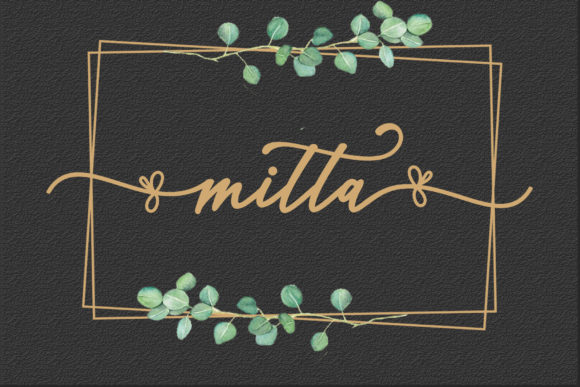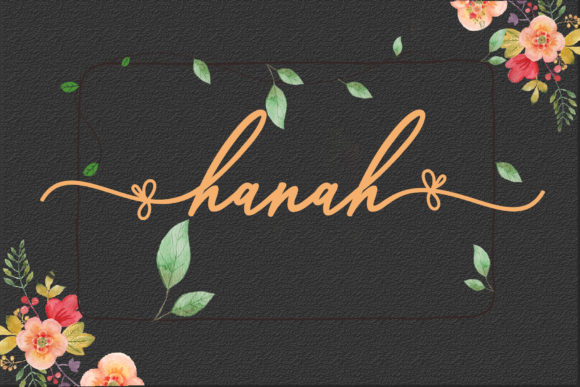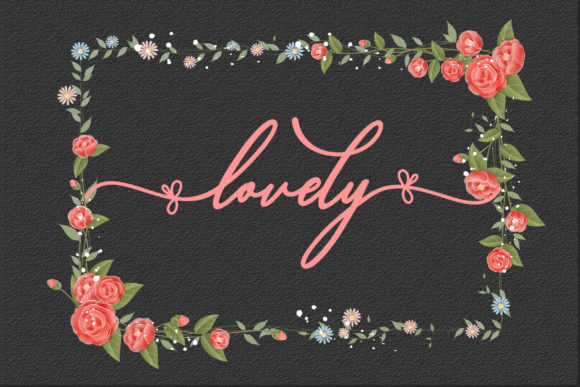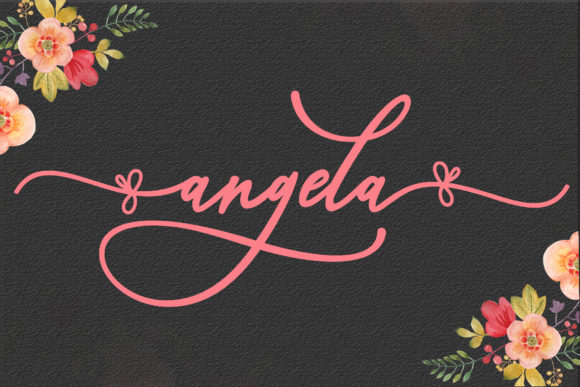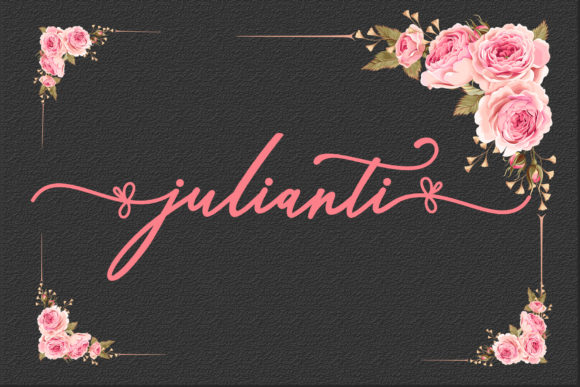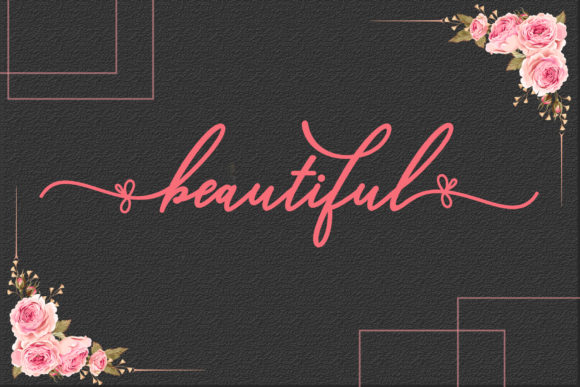
Cynthia Script Font: The Perfect Choice for Crafting and Romantic Designs
Cynthia is a charming and romantic script font that has captured the hearts of designers and crafters alike. With its elegant and flowing strokes, Cynthia is an ideal choice for anyone looking to add a touch of sophistication and whimsy to their designs. In this article, we’ll explore the features and benefits of the Cynthia script font, and why it’s a must-have for any designer or crafter looking to create beautiful and eye-catching projects.
The Charm of Cynthia Script Font
Cynthia script font is a beautiful, handwritten font that exudes a sense of romance and charm. Its delicate and intricate strokes make it perfect for creating elegant and sophisticated designs. Whether you’re working on a wedding invitation, a scrapbook page, or a handmade card, Cynthia is sure to add a touch of magic to your project.
One of the standout features of Cynthia is its unique and distinctive style. The font’s flowing strokes and whimsical flourishes make it stand out from more traditional script fonts, giving it a fresh and modern feel. At the same time, its classic and elegant vibe ensures that it will never go out of style.
Why Cynthia is Perfect for Crafting
Cynthia script font is a crafter’s dream come true. Its charming and romantic style makes it perfect for a wide range of crafting projects, from scrapbooking and card making to journaling and mixed media art. The font’s delicate and intricate strokes also make it ideal for creating beautiful and intricate designs, such as borders, frames, and embellishments.
Another reason why Cynthia is perfect for crafting is its versatility. The font can be used in a variety of colors and styles, making it easy to match your project’s theme and aesthetic. Whether you’re working on a vintage-inspired project or a modern and bold design, Cynthia is sure to fit right in.
Using Cynthia Script Font in Your Designs
Tips and Tricks for Working with Cynthia
- Experiment with different colors and styles: Cynthia looks great in a variety of colors and styles, so don’t be afraid to try out different options.
- Pair Cynthia with other fonts: Pairing Cynthia with other fonts can create a beautiful and unique contrast, adding depth and interest to your design.
- Use Cynthia for titles and headings: Cynthia’s elegant and flowing strokes make it perfect for titles and headings, adding a touch of sophistication and elegance to your design.
- Add embellishments and textures: Adding embellishments and textures can give your design an extra touch of sparkle and shine, making it stand out from the crowd.
Cynthia script font is a charming and romantic font that is perfect for designers and crafters looking to add a touch of elegance and whimsy to their designs. With its unique and distinctive style, versatility, and ease of use, Cynthia is a must-have for anyone looking to create beautiful and eye-catching projects. Whether you’re working on a wedding invitation, a scrapbook page, or a handmade card, Cynthia is sure to make your design stand out from the crowd.